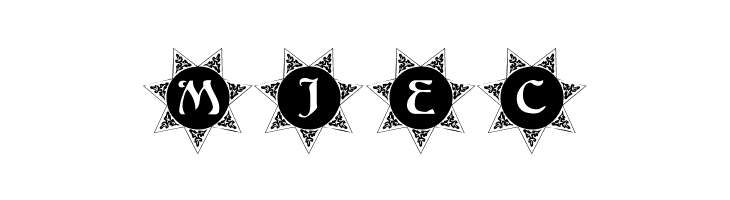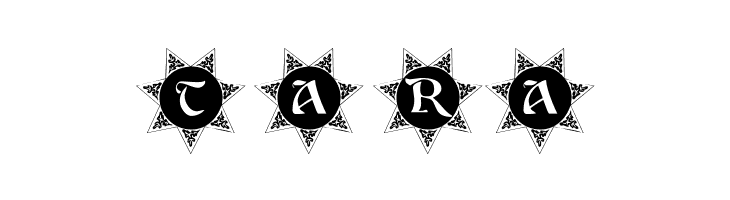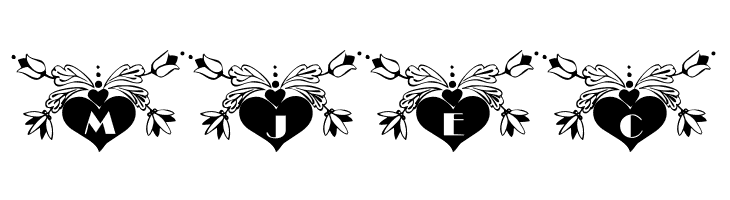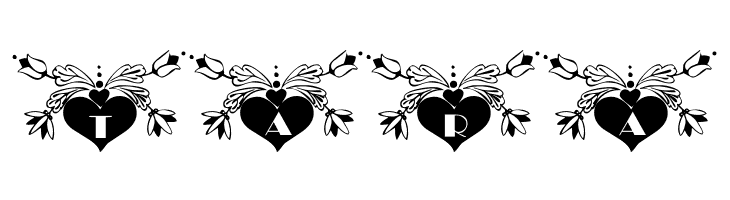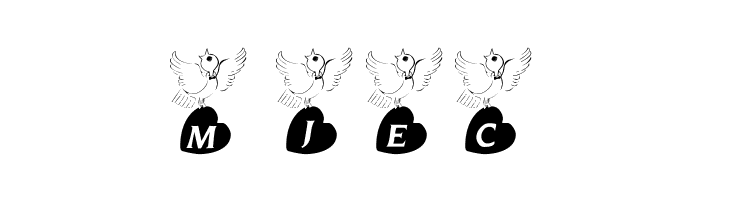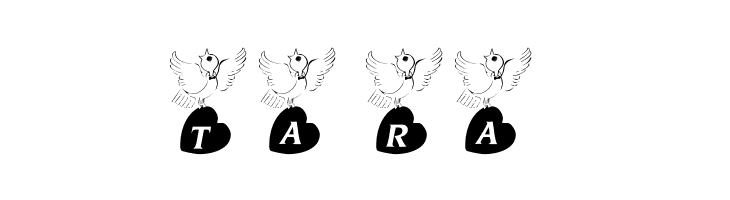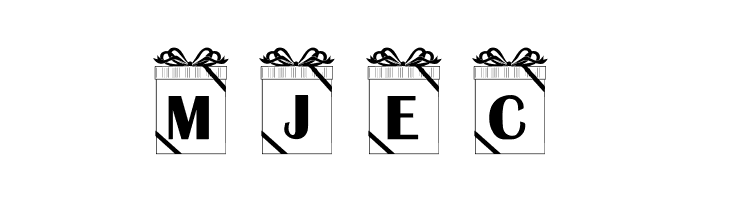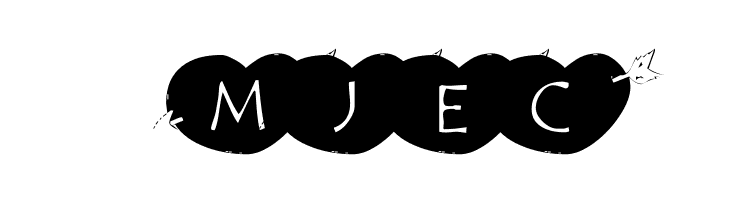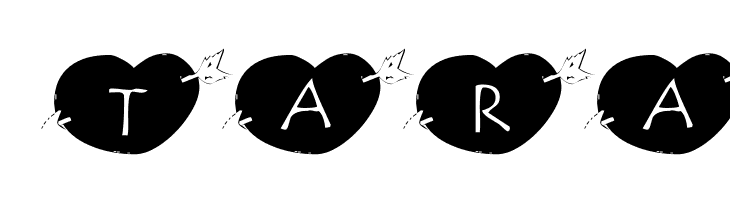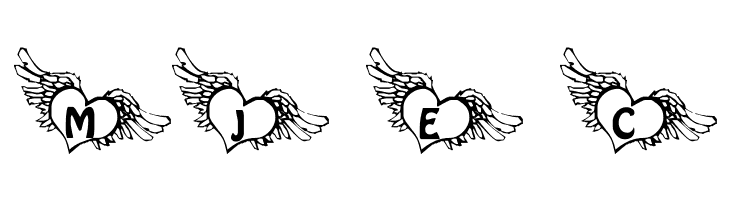
A decorative font with characters encased in starburst designs, combining classic serif elements with modern flair.
Ornate heart and floral decorative pattern.
A decorative font with bold characters inside heart shapes, topped with doves.
A decorative font with bold uppercase letters inside gift box designs.
A playful font with letters inside heart shapes, perfect for romantic themes.
A decorative font with characters inside heart shapes with wings.
A nautical-themed font with characters integrated into sailboat silhouettes.
A decorative font with characters inside heart-shaped floral designs.
A playful font with characters inside candy wrapper shapes, offering a whimsical and fun design.
A decorative font with characters encased in bell silhouettes, ideal for thematic designs.
A playful font with characters enclosed in stylized loot bags, perfect for whimsical designs.
An elegant script font with a decorative mask motif above each character.
Bold uppercase font with decorative circular borders.
A decorative serif font with rose embellishments, offering a vintage and romantic style.
A bold, decorative font with star and lightning motifs.